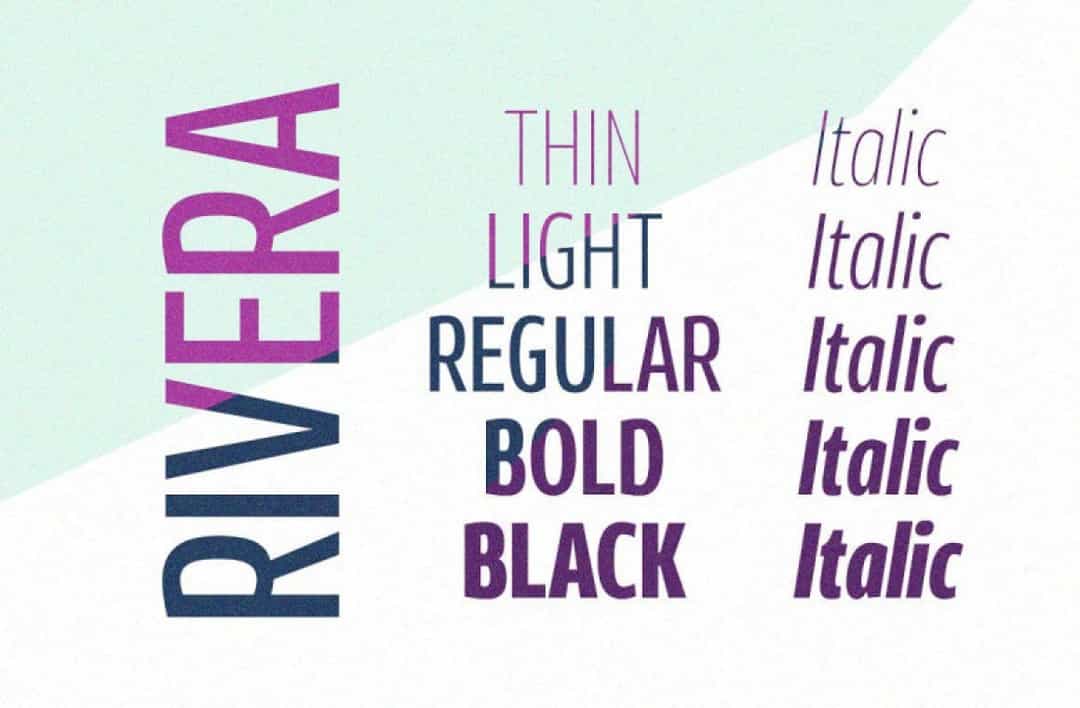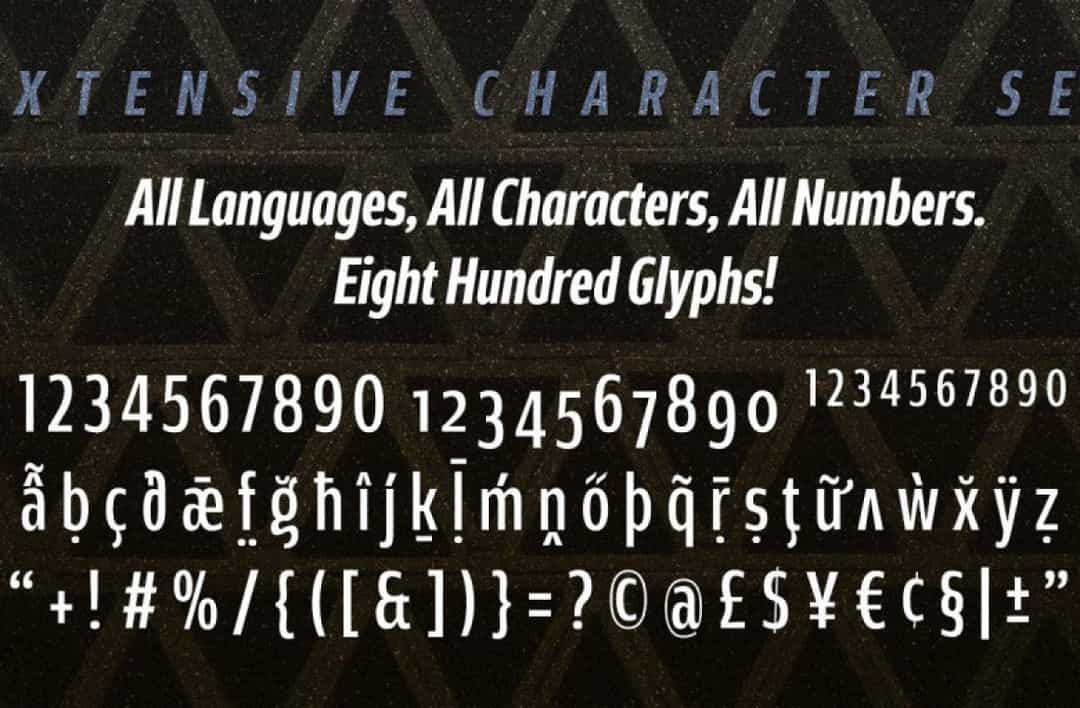
Rivera can be described as an elegant sans serif font family. Featuring tall and narrow letterforms that create the impression of sophistication while remaining humble and simple. Use Rivera as a clean headline font, logotype or text – Rivera will help take your brand to new levels! It consists of thin Light font, Regular font, Bold font as well as each style in Italic format.